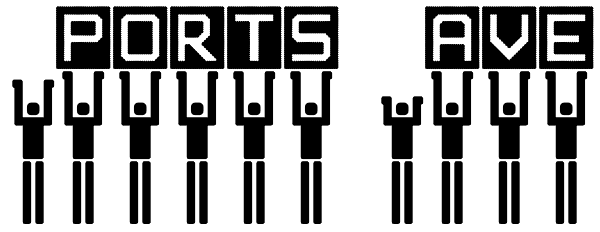
Sports Wave
Sports Wave is a specialty font that can be used for sports-themed projects. Previously available as a free version with only the pictograms, Sports Wave has been a popular download. Now we offer you the added usability of a full and extended...